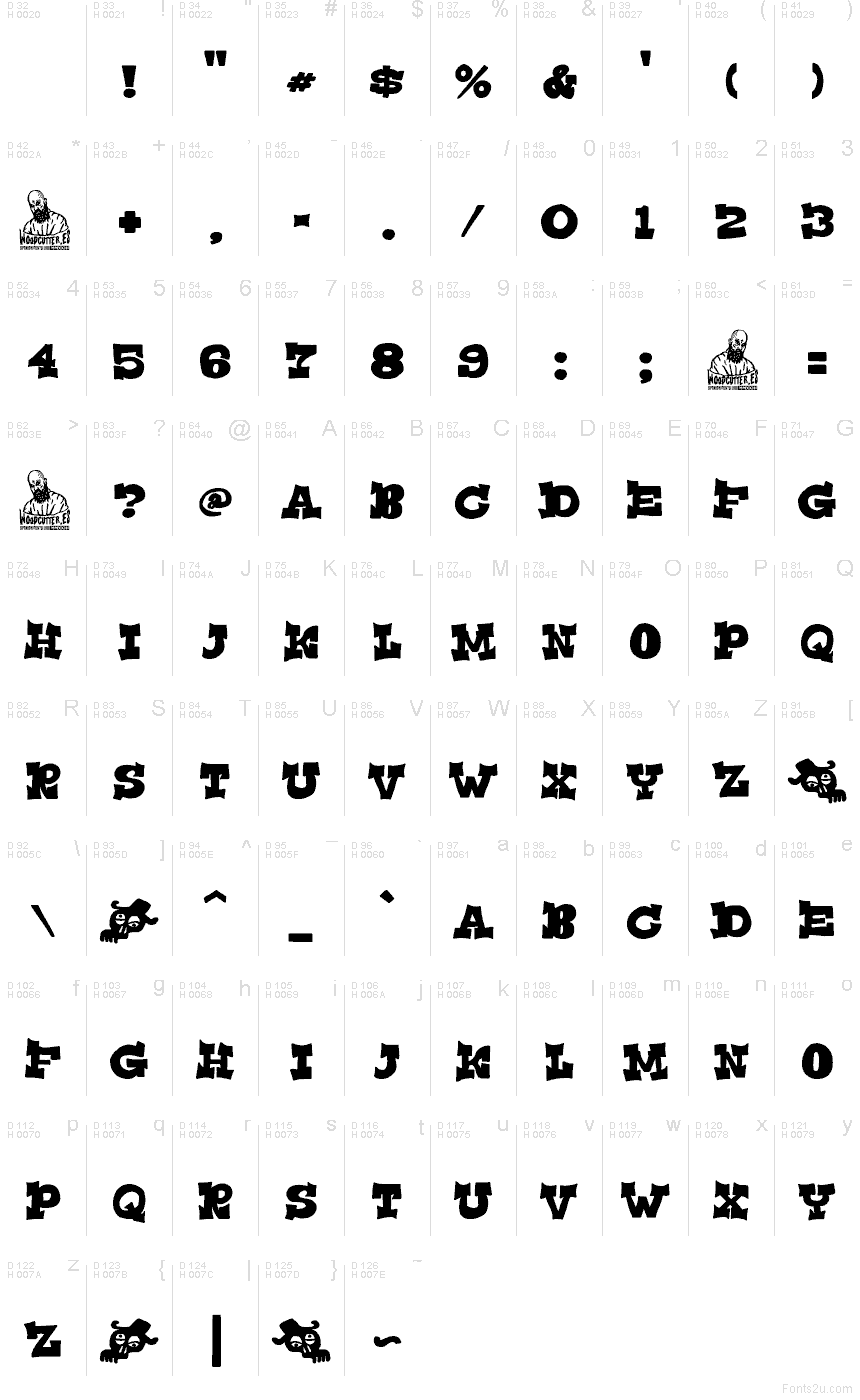
Le Cow-Boy Ivre font by Woodcutter is a free western display typeface that staggers across the line like a tipsy rodeo sign. Thick, inky letterforms lurch up and down, with wobbling curves and uneven widths that feel hand-painted on rough saloon wood. It’s loud, scruffy, and full of slapstick energy, giving any headline a rowdy, off-kilter charm that looks like it’s been through a long night at the bar.
Using Le Cow-Boy Ivre, you can bring a boozy frontier vibe to posters, party flyers, bar menus, Halloween graphics, game titles, and quirky branding. This free font works best big and bold, where its irregular rhythm and chunky silhouettes can really be seen. For copy or details, pair it with a plain sans-serif so the wild, drunken letters stay center stage without sacrificing readability.
Le Cow-Boy Ivre.